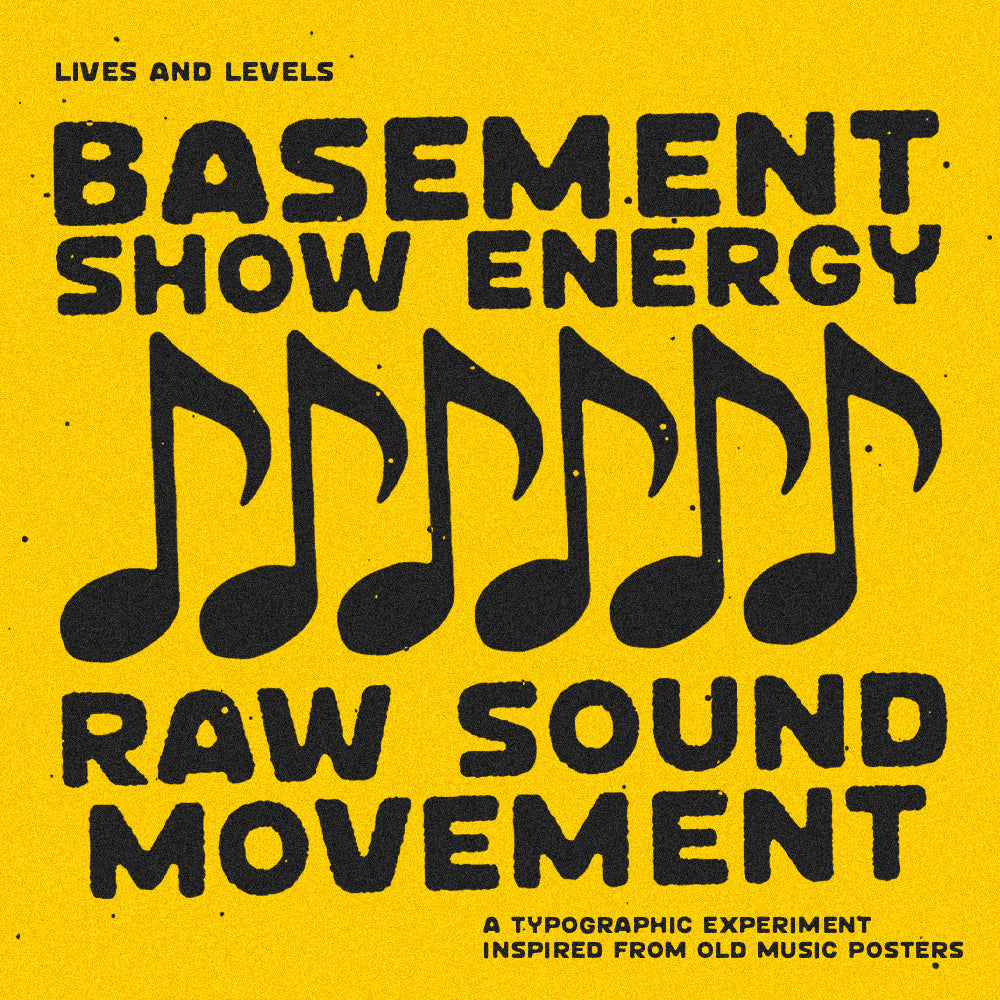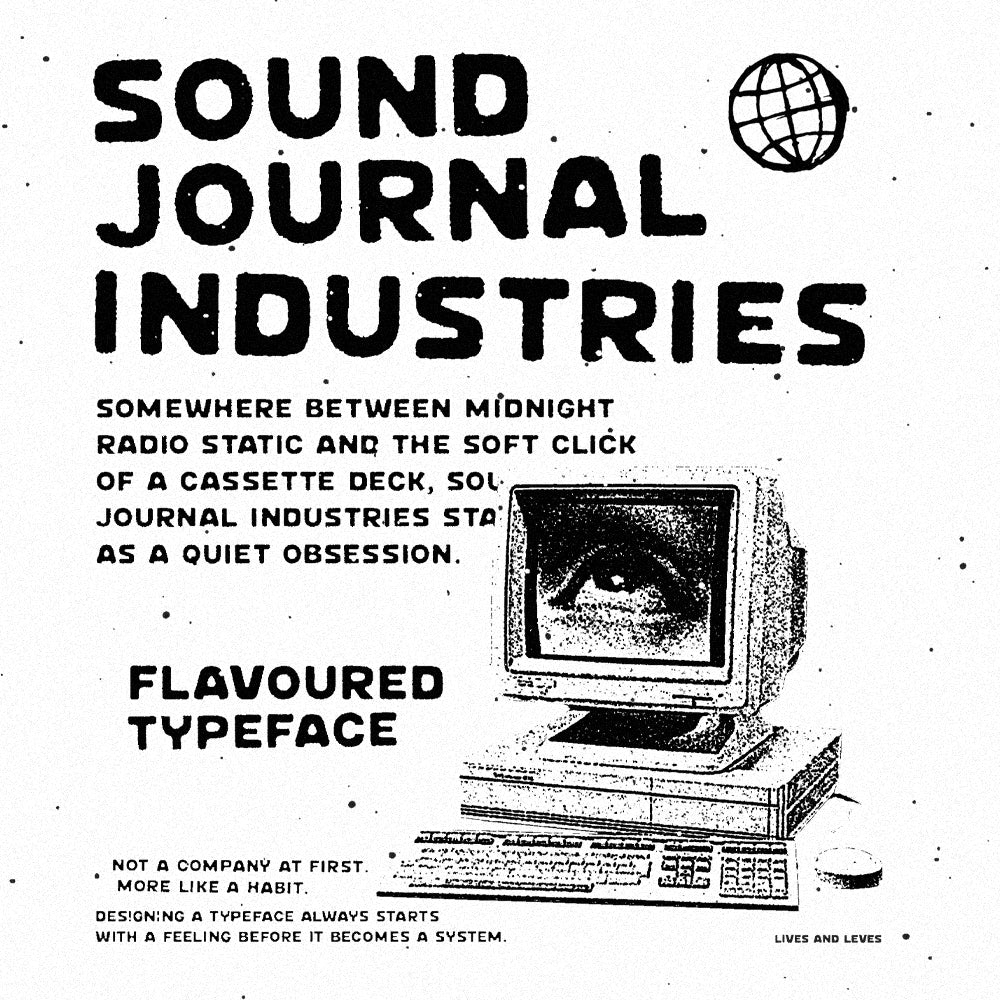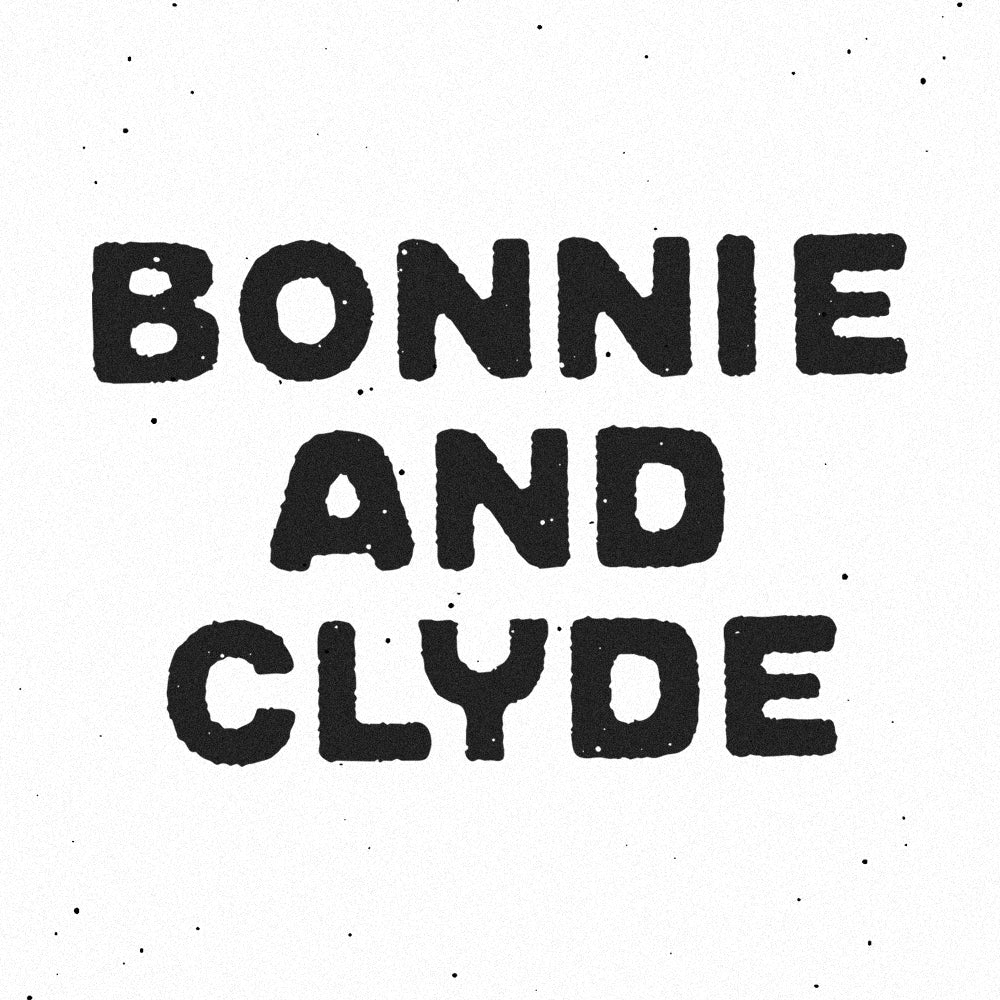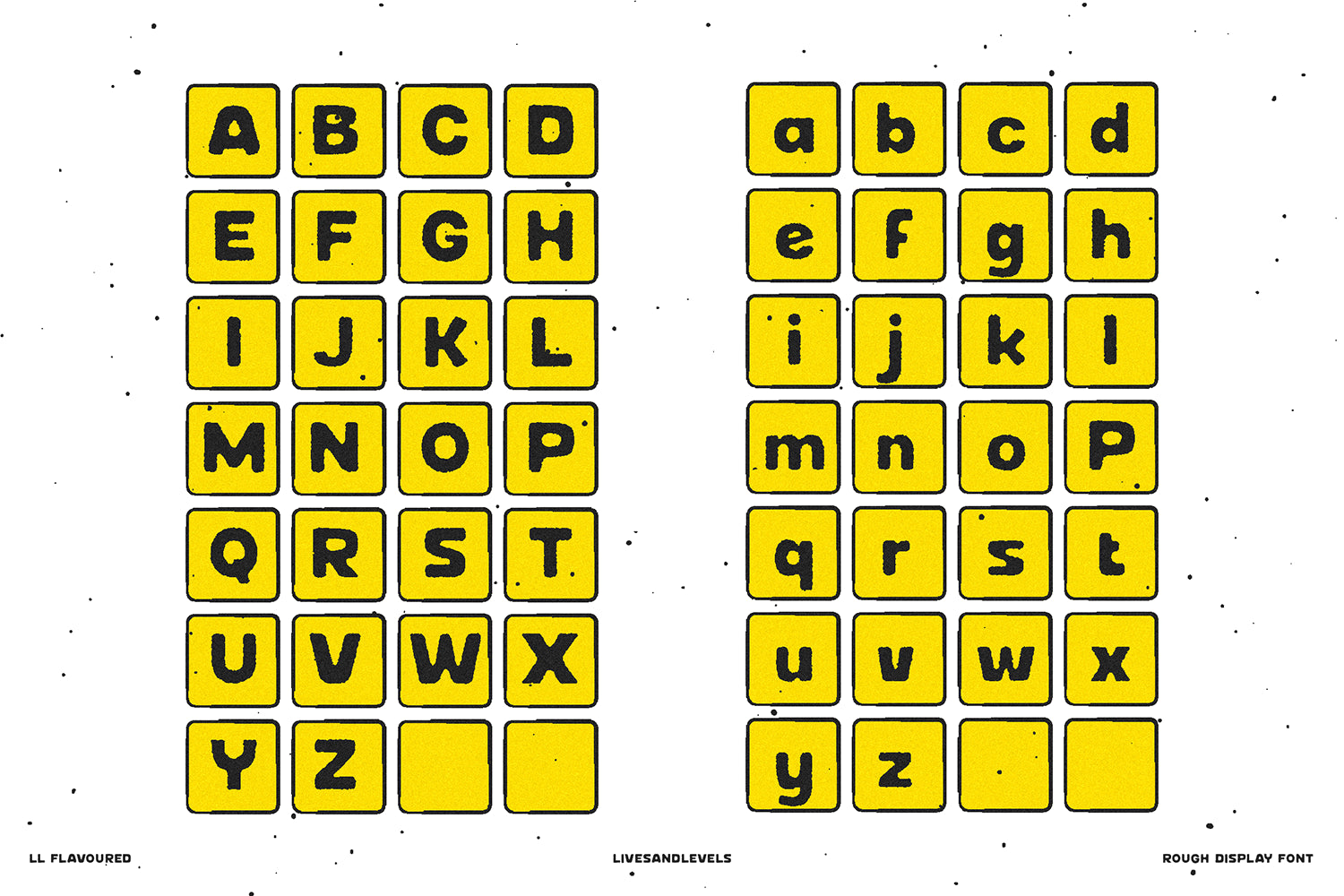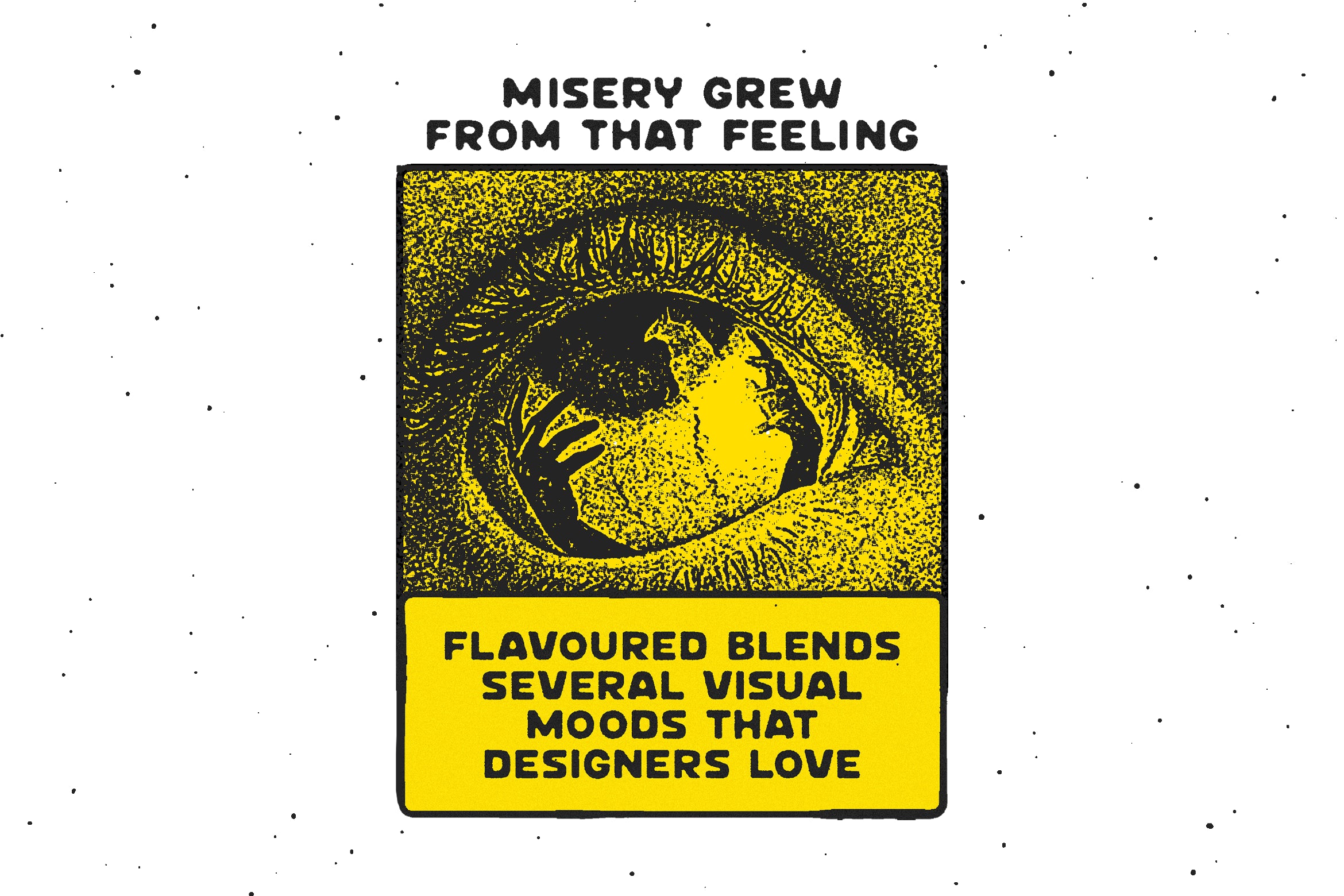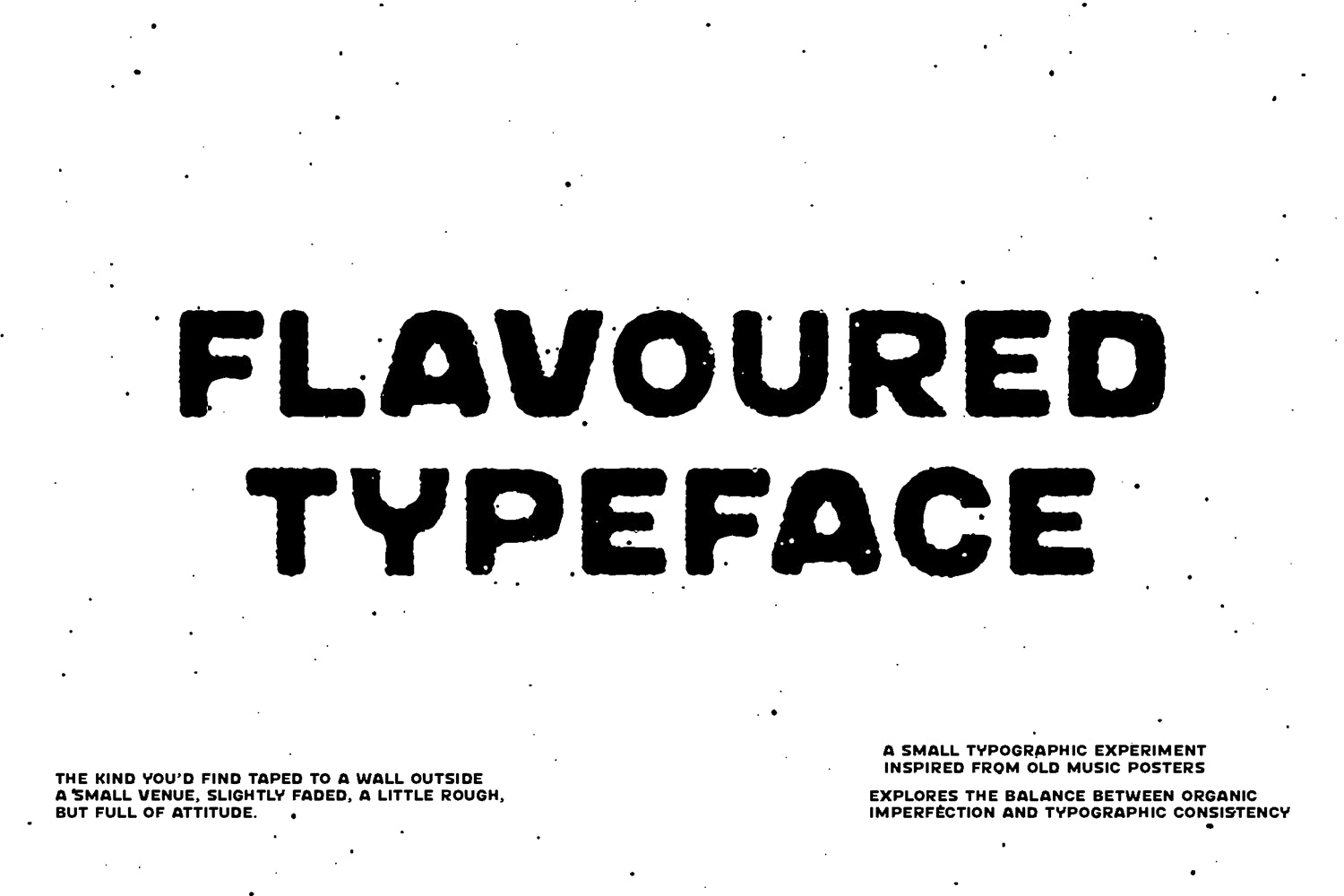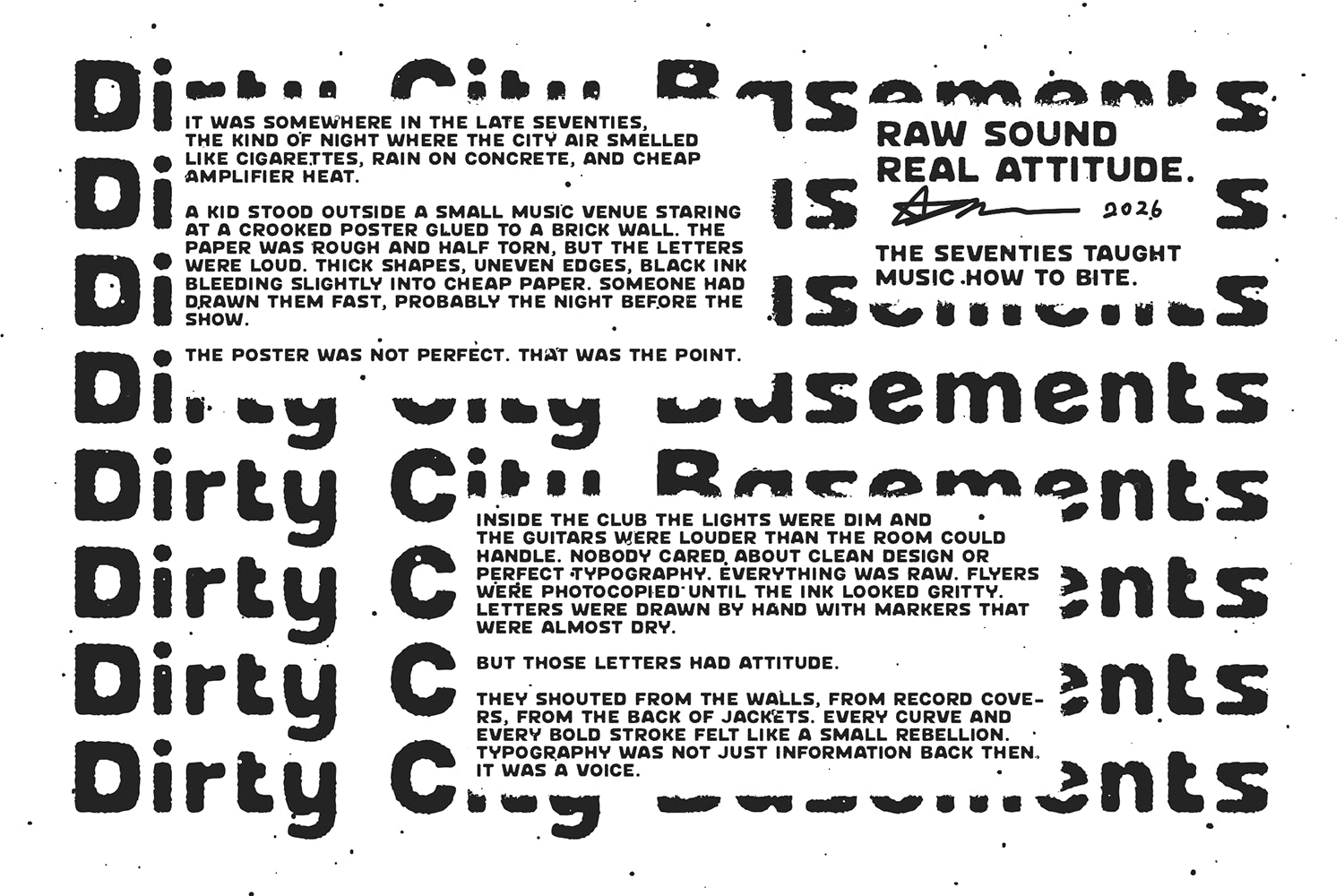
LL Flavoured Font
Actually, I kept thinking about old music posters from the 80s while making this typeface. The kind you’d find taped to a wall outside a small venue, slightly faded, a little rough, but full of attitude. Those posters had something special. The letters were loud, bold, and never trying too hard to look perfect. They just existed with confidence.
When I started sketching the letters, I imagined the energy of live music flyers, cassette covers, and handmade gig posters. Back then, typography felt alive. Designers and musicians weren’t worried about everything being perfectly clean. The shapes had quirks, edges had texture, and that small chaos gave the letters personality.
In a way, designing this font felt like listening to an old cassette tape. There is a bit of grain, a bit of warmth, and a lot of personality that makes the whole thing feel human.
Font Features
Uppercase & lowercase letters
Numbers & punctuation
Multilingual support
Two styles: Rough & Regular
Clean kerning & spacing
LL Flavoured Font is a bold display typeface inspired by the aesthetics of 80s music posters, featuring uppercase and lowercase letters, numbers, punctuation, and multilingual support. It includes two styles—Rough and Regular—and comes with clean kerning and spacing in both OTF and TTF file formats.